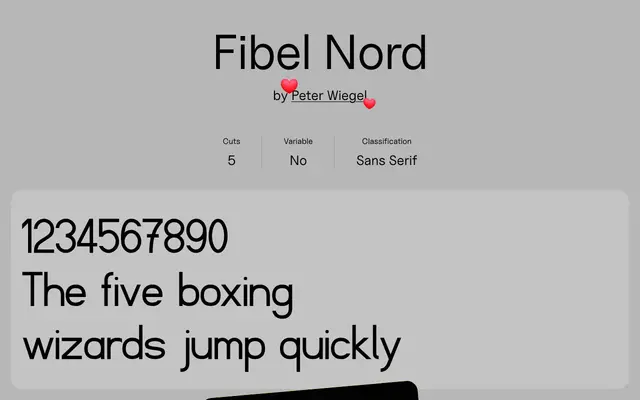
Fibel Nord
A five-cut sans-serif by Peter Wiegel, freely available under the SIL Open Font License for commercial and personal use.
A sans-serif family by Peter Wiegel offered in five cuts with an open licence permitting commercial use, modification and redistribution. The name suggests a northern European grotesque influence, keeping the design plain and functional. Available via Uncut with no cost barrier, making it a practical choice for projects with budget constraints.
Classified as Sans Serif by the foundry; the name and visual style suggest a mid-century European grotesque character, consistent with a straightforward grotesque subcategory.